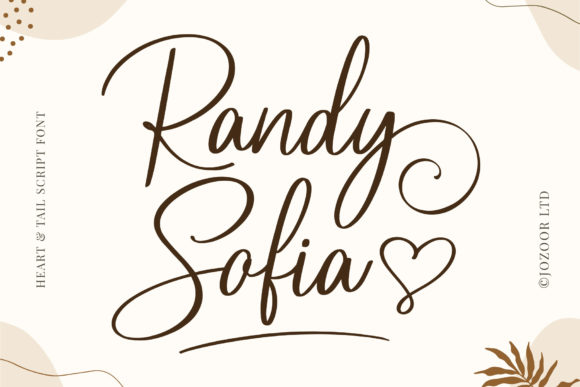
\n\nLooking for the perfect font for your wedding invites or other special projects? Look no further than Randy Sofia Font! This beautiful script font, created by Jozoor, is sure to add a touch of romance and sweetness to any design project.\n\nOne of the standout features of Randy Sofia Font is its unique, dancing baseline. Each character in this calligraphy typeface seems to move and sway, giving your text a sense of movement and energy. Whether you're designing a wedding invitation or a romantic greeting card, this font is sure to make your text stand out.\n\nIn addition to its charming design, Randy Sofia Font is also incredibly versatile. With its PUA encoding, accessing the font's many glyphs and ligatures is a breeze. This makes it easy to add a personal touch to your projects and create truly unique designs.\n\nSo why choose Randy Sofia Font? Simply put, it's the best font for wedding invites and other romantic projects. With its luxurious spark and beautiful script design, it's sure to capture the hearts of anyone who sees it. Whether you're a professional designer or just someone who loves creating beautiful things, Randy Sofia Font is a must-have addition to your font collection.\n\n